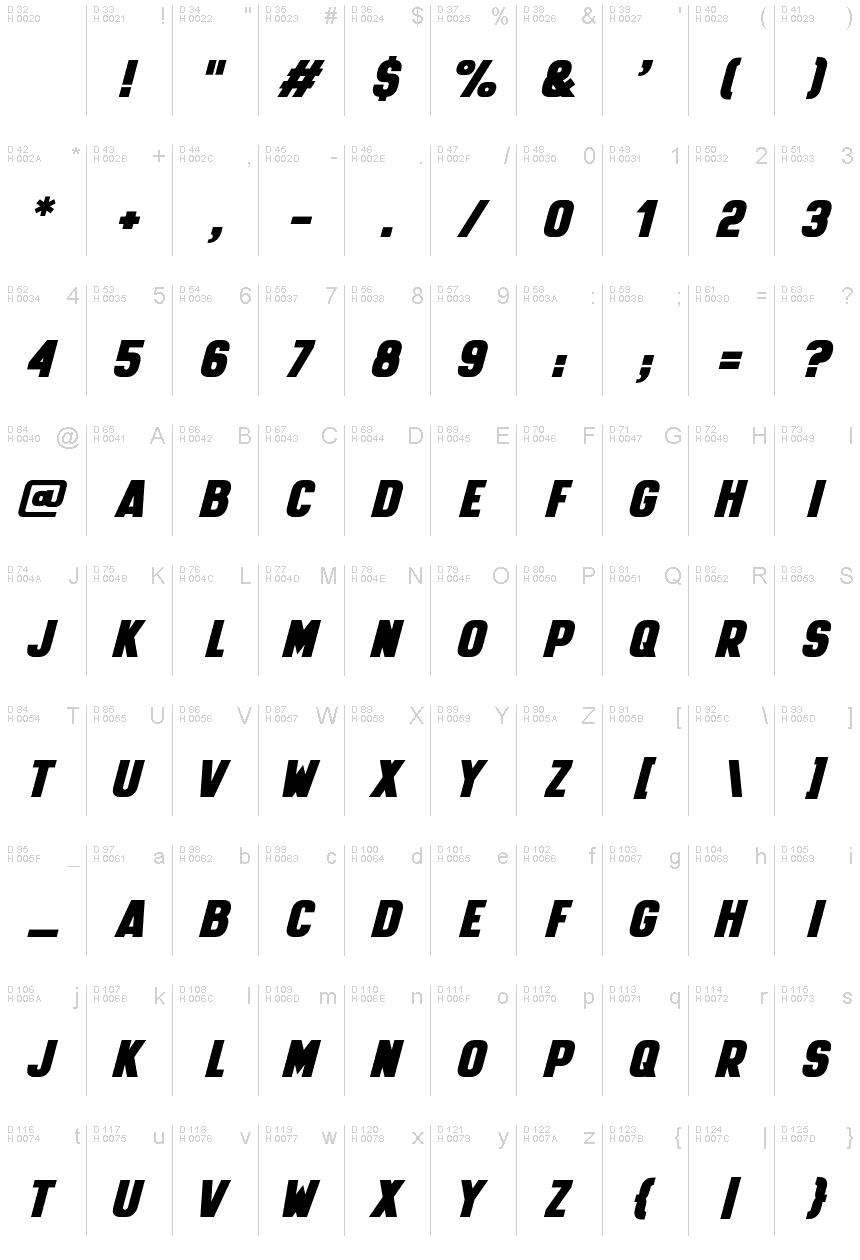
HyperSuperItalic
Meet HyperSuper Italic, the bold and captivating sans serif font designed by Bisou.
Its unique italic style adds a touch of elegance and modernity to any project, making it perfect for eye-catching headlines, striking logos, and dynamic branding materials. The bold weight ensures maximum impact and legibility, making it ideal for advertising campaigns that demand attention. Whether you're designing a fashion magazine spread or creating a sleek website interface, HyperSuper Italic is the perfect choice to make your content stand out from the crowd.